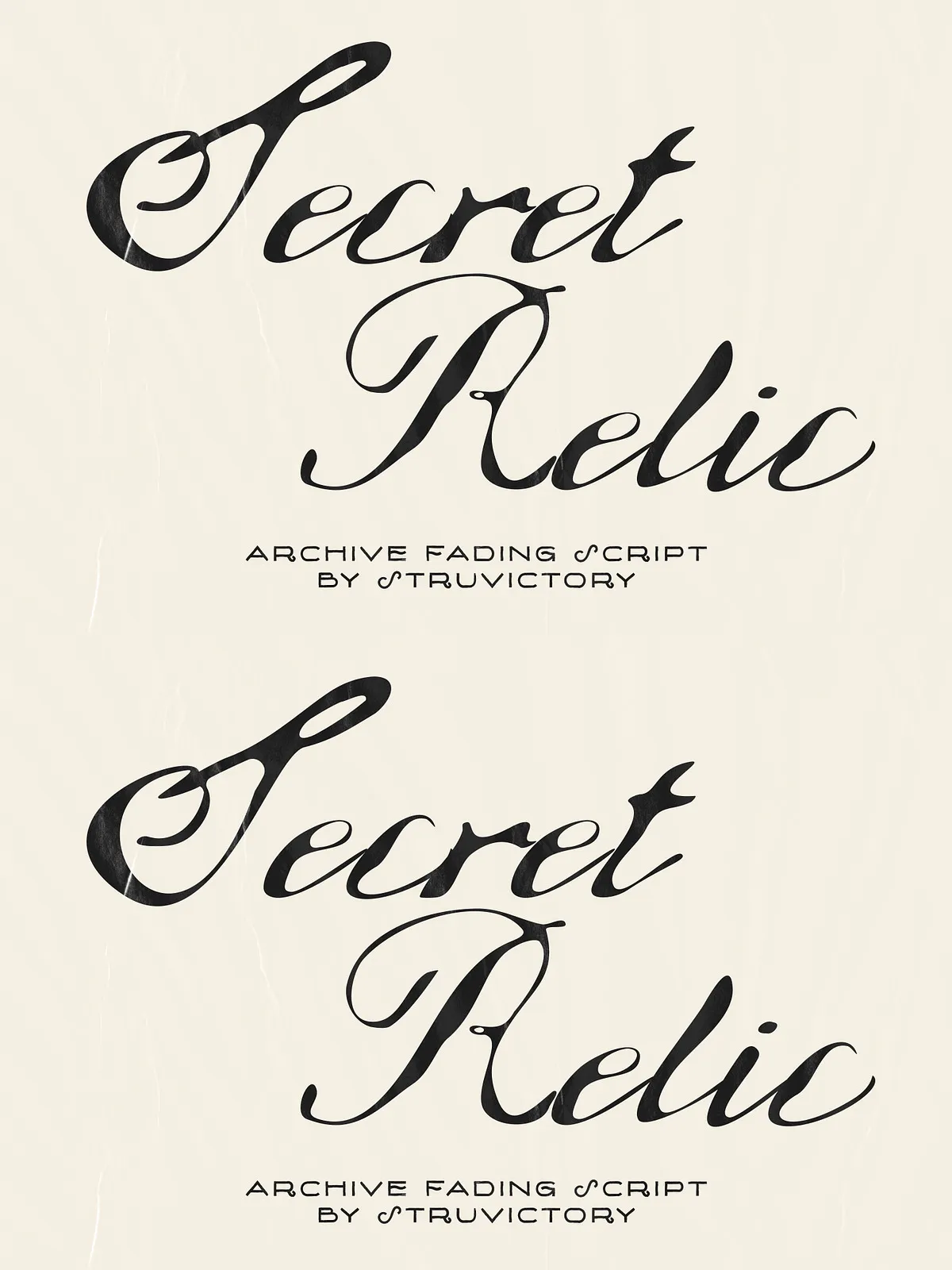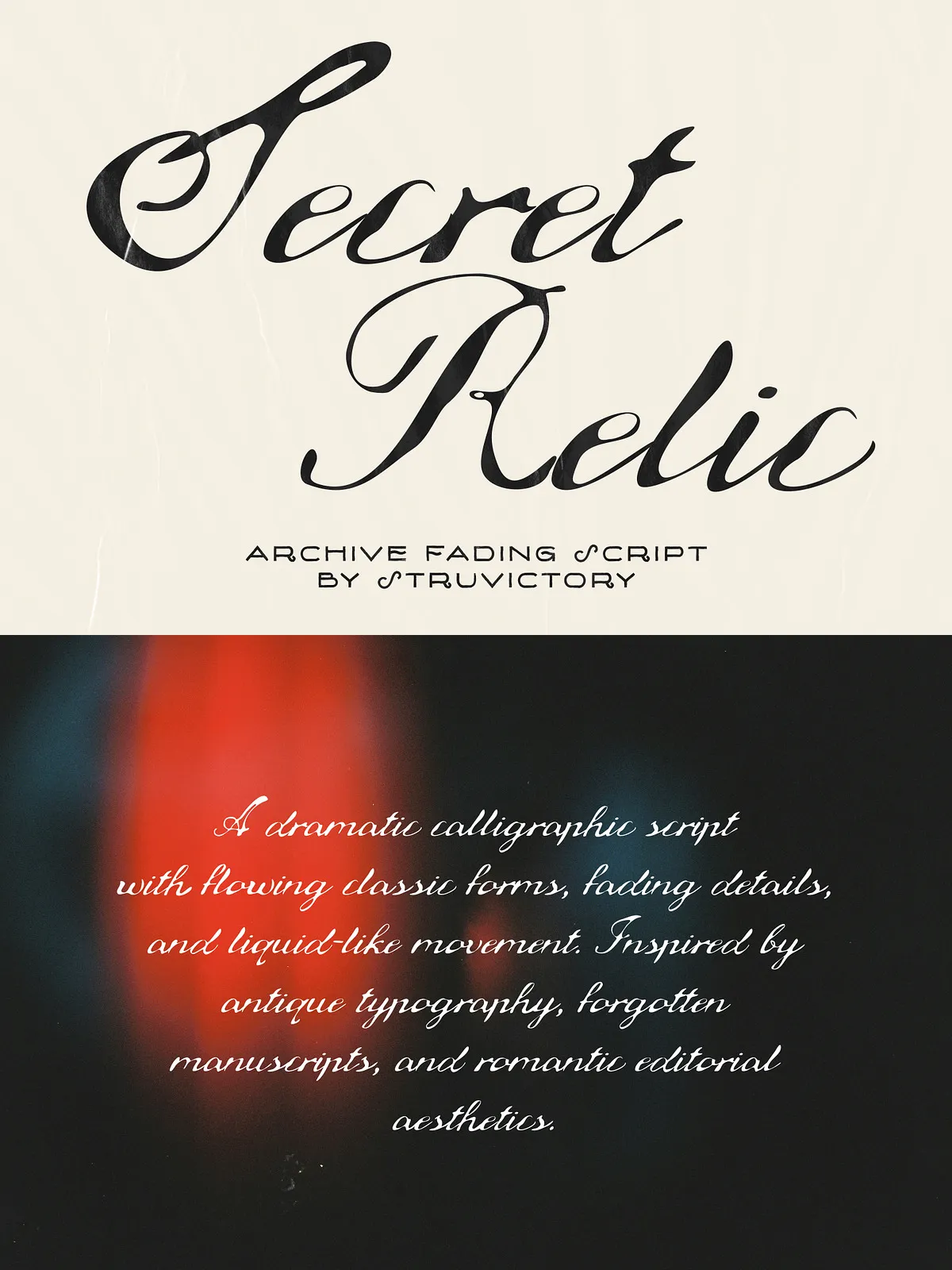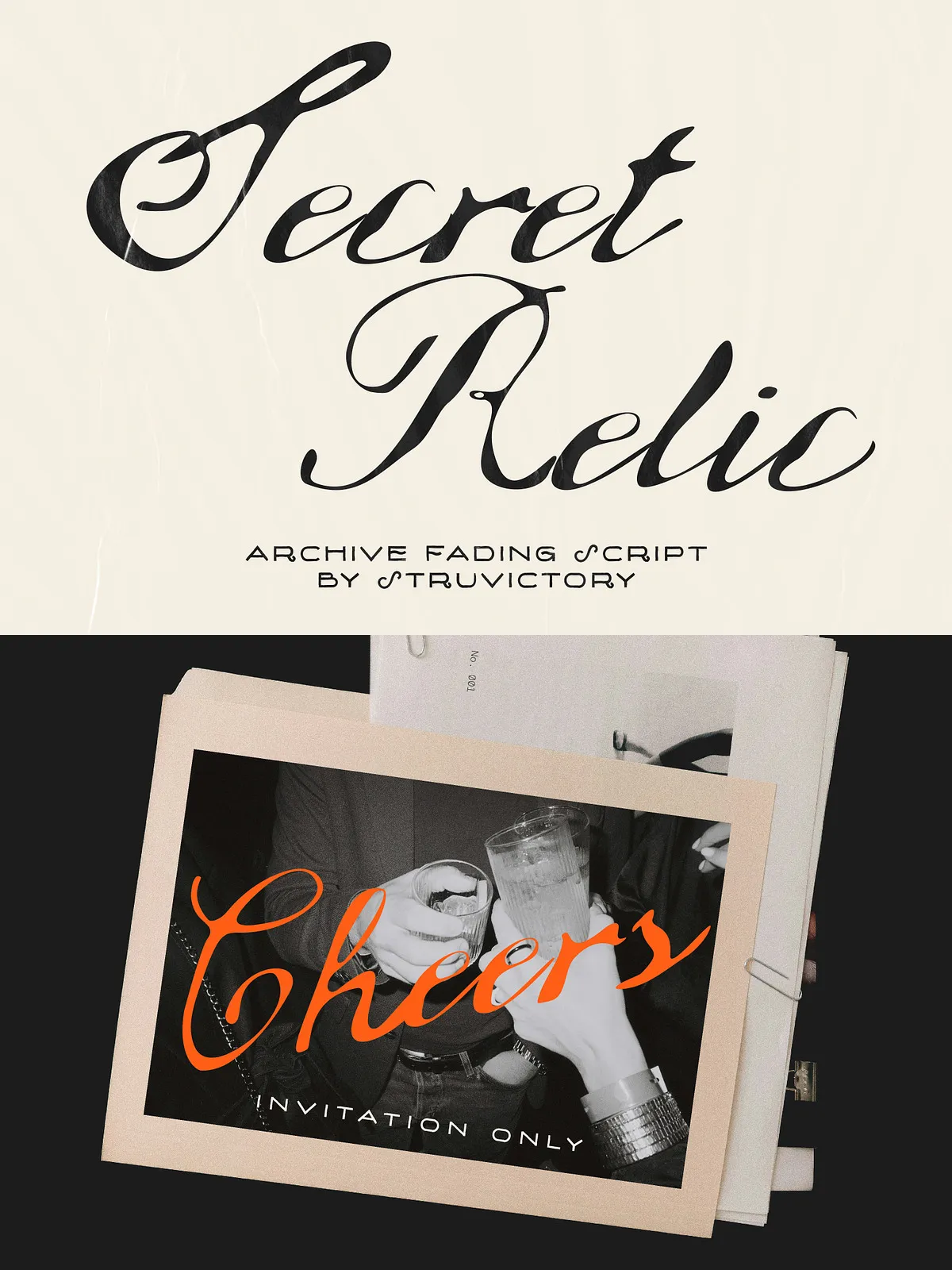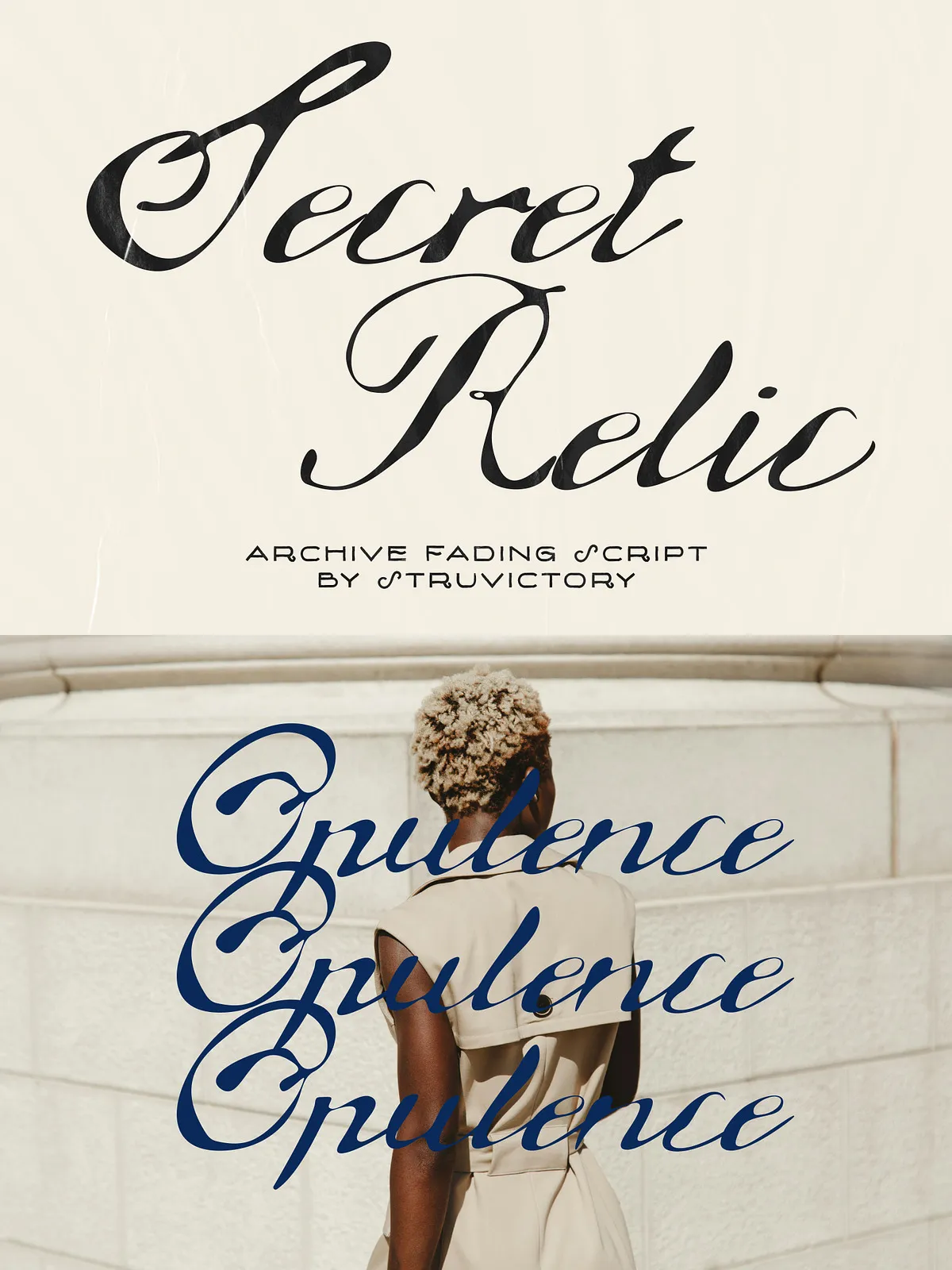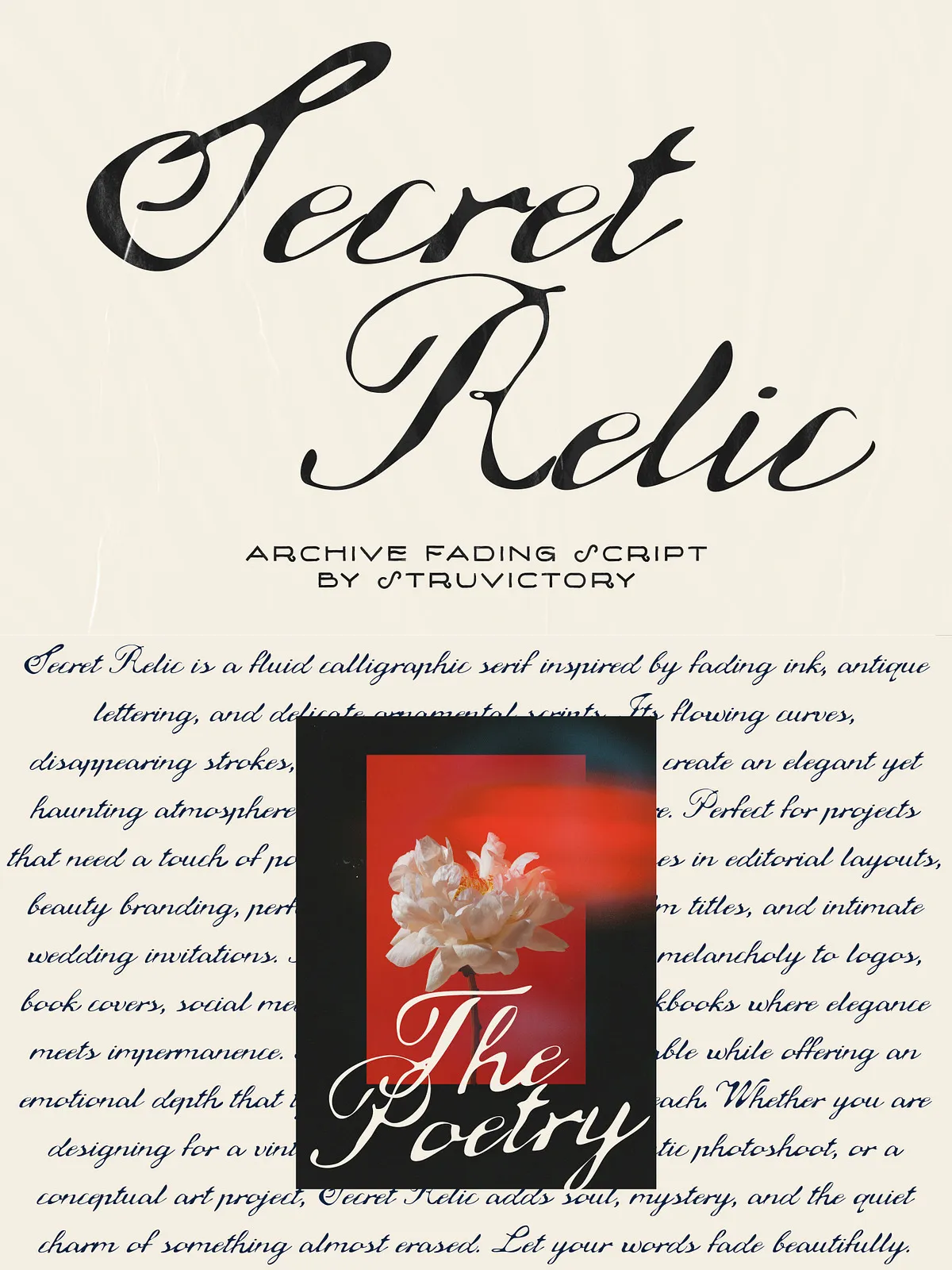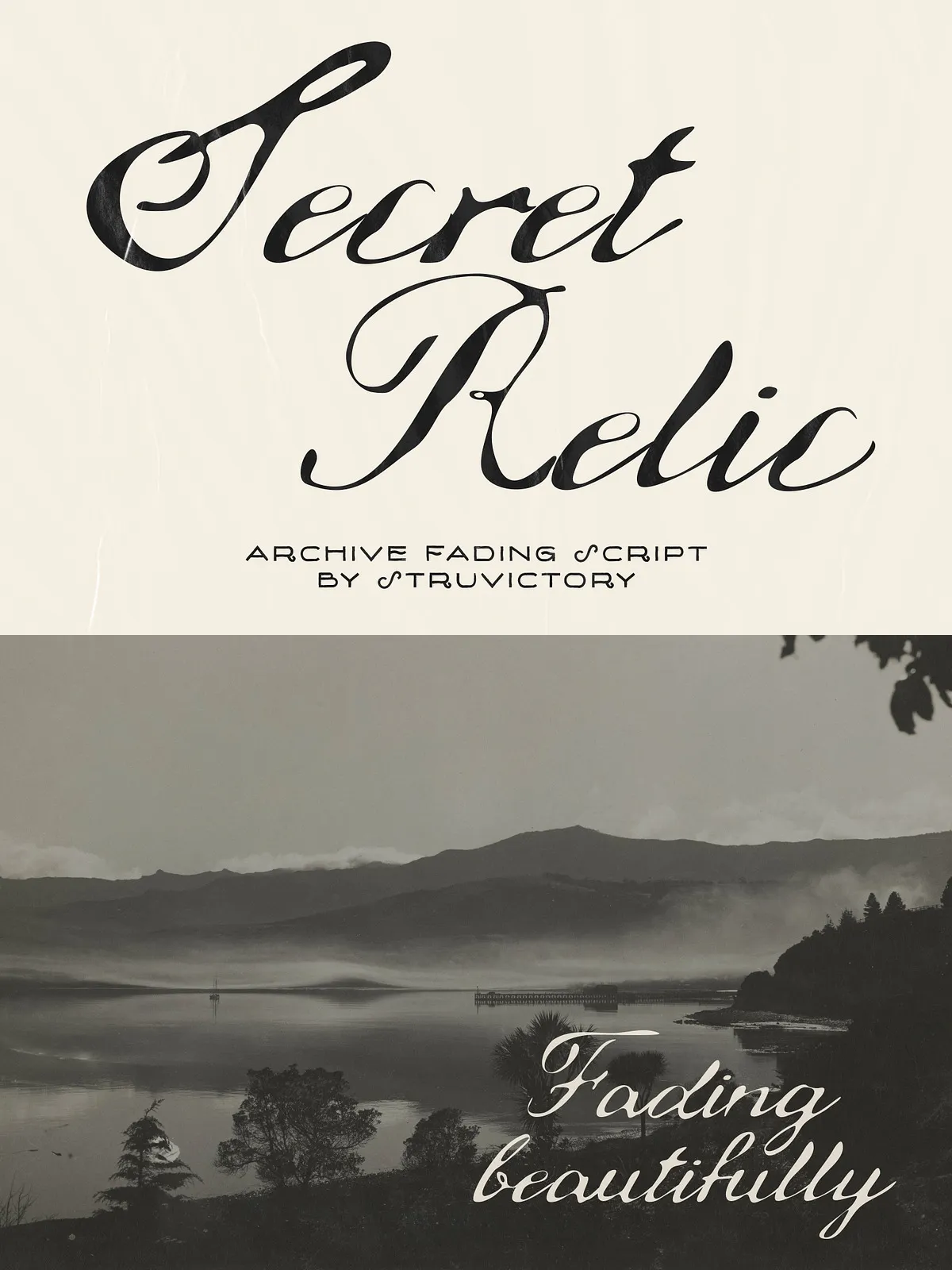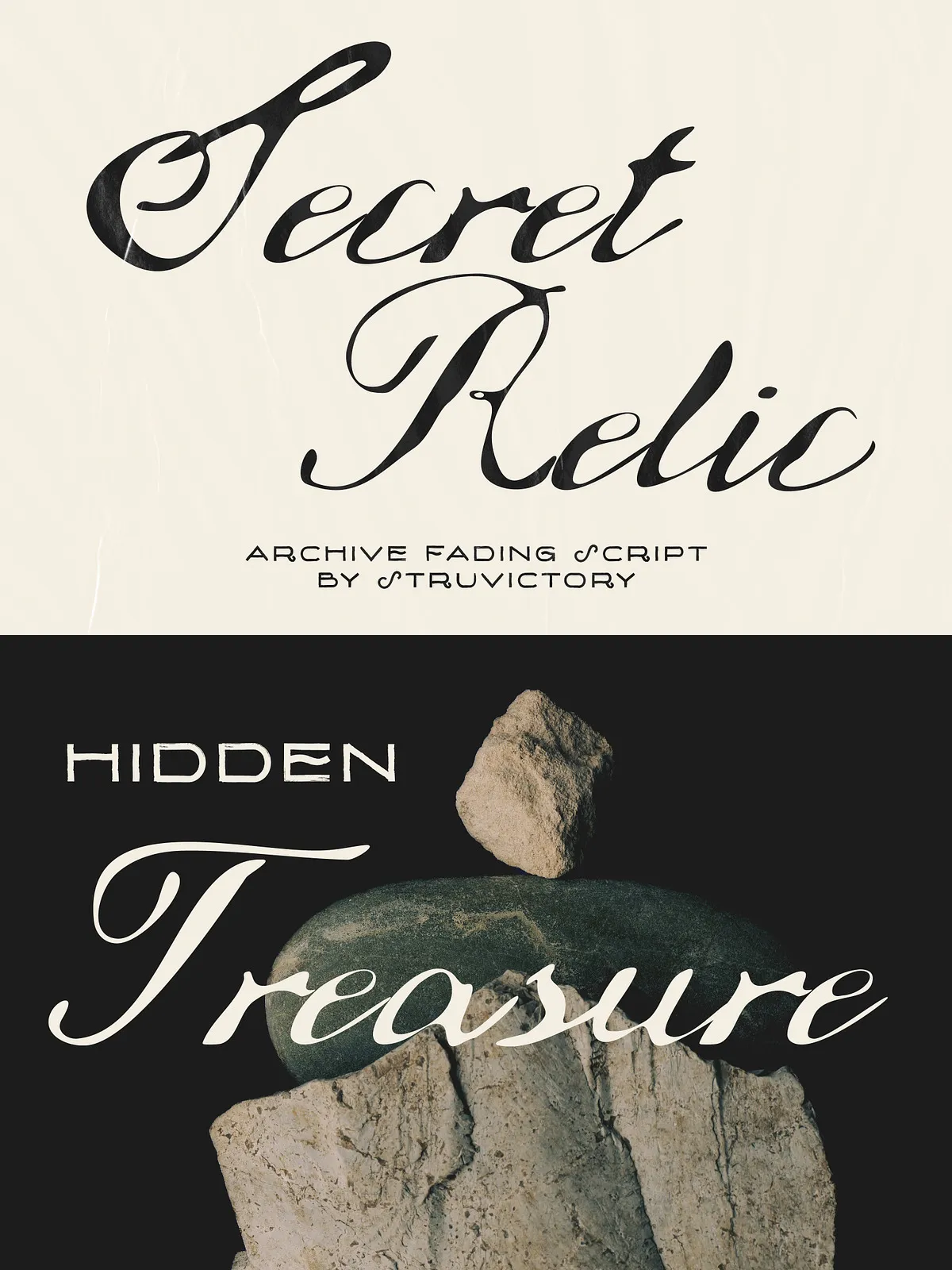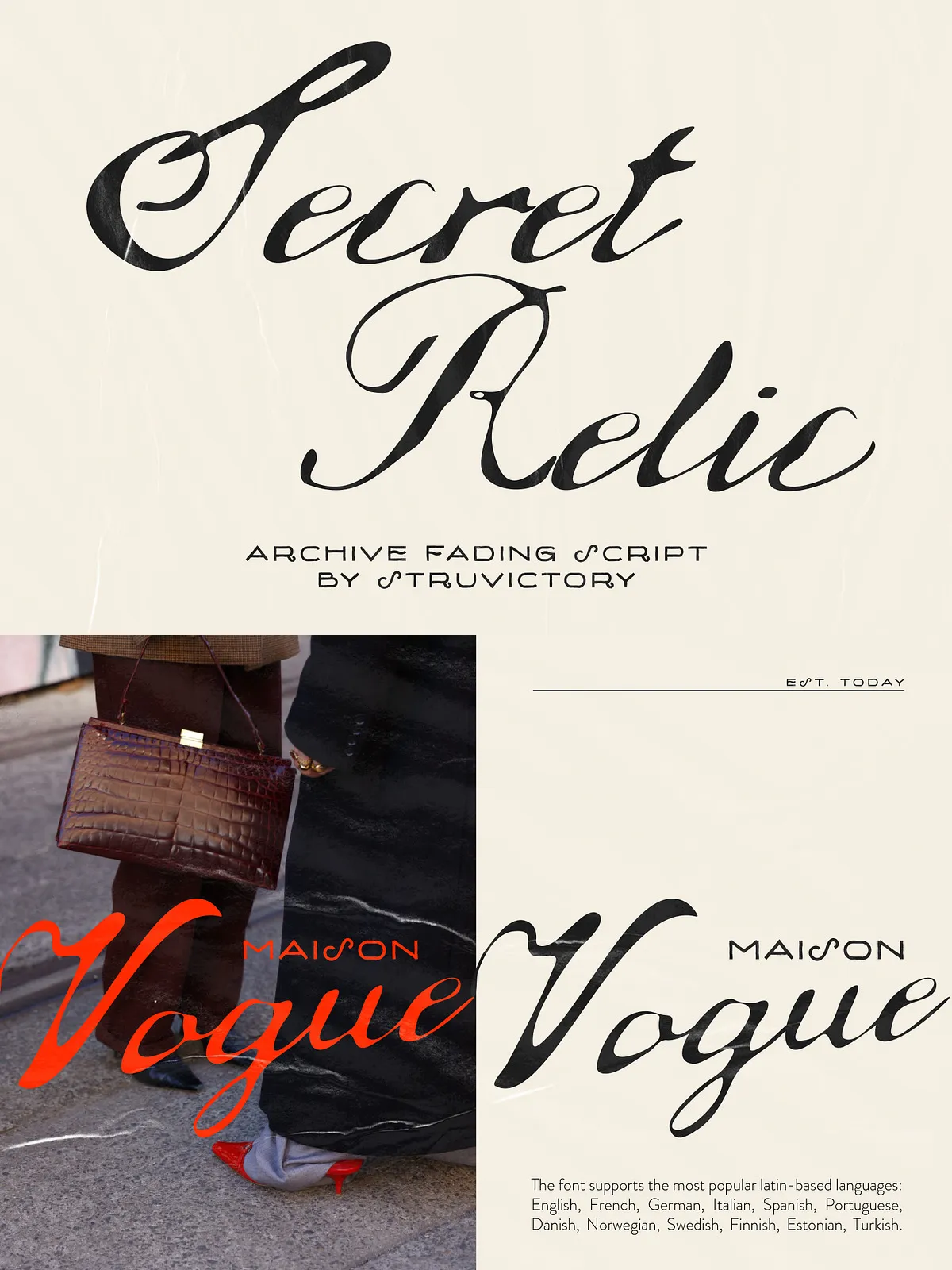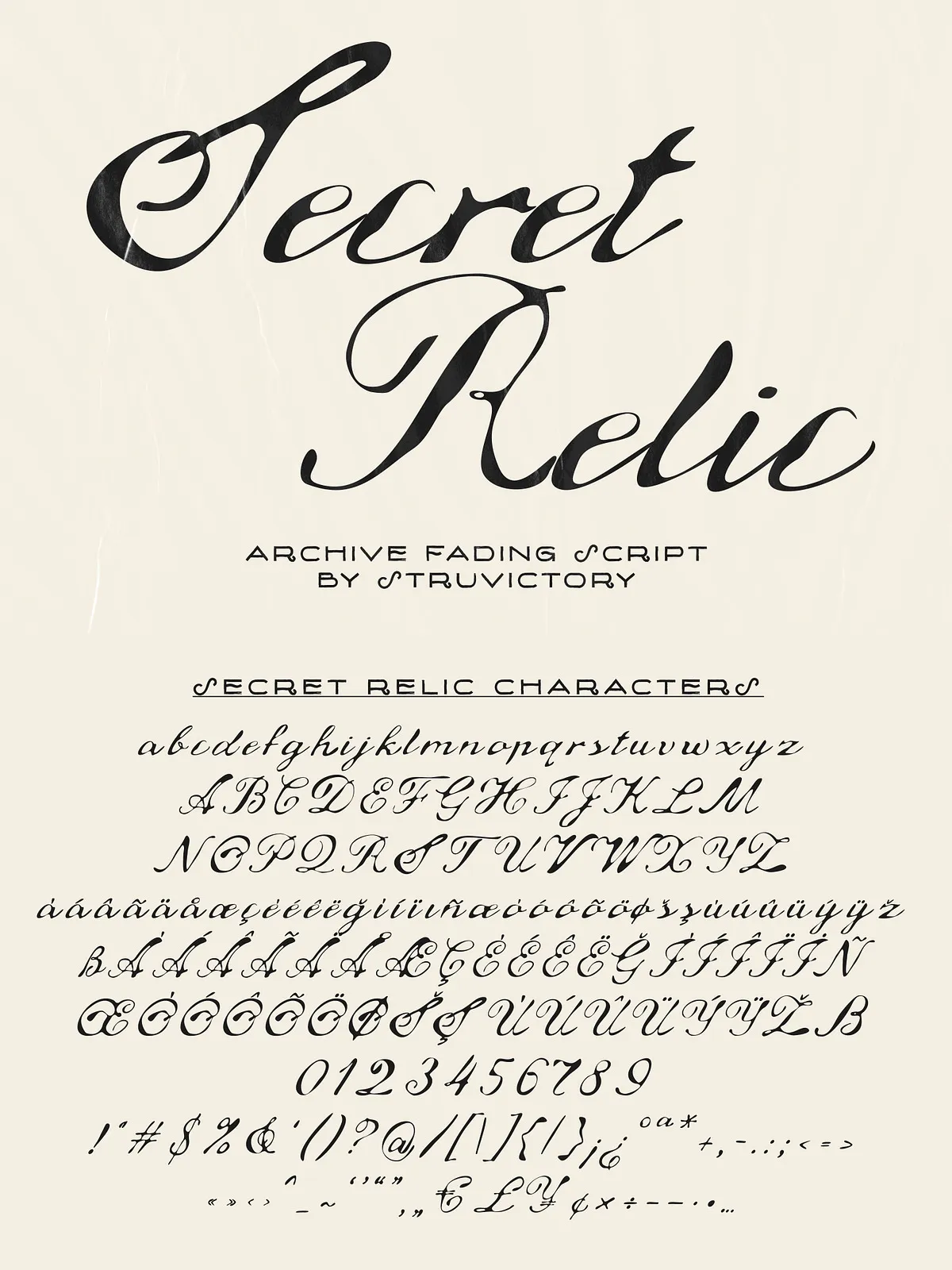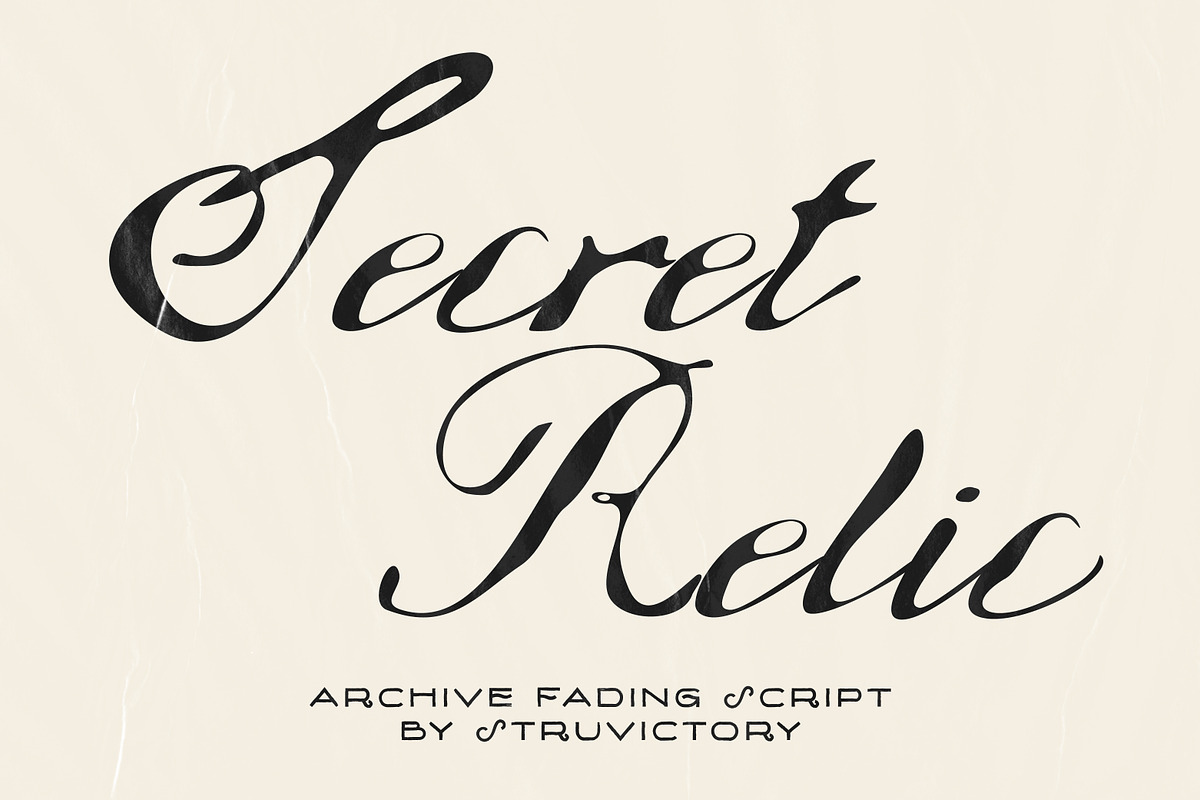
Secret Relic delivers an evocative script that reads like handwriting left to weather and time. This expressive font pairs refined calligraphic strokes with a soft, liquid edge that suggests fading ink, producing an aesthetic that is elegant, fragile, and emotionally resonant. Designed for display and headline use, Secret Relic brings poetic decay and quiet romance to branding, editorial spreads, packaging, invitations, and any design that benefits from a sense of mystery and memory.
Design Character
Calligraphic Roots, Fluid Finish
Secret Relic stems from classical calligraphic forms but adapts them into a looser, more organic voice. The strokes move with a natural rhythm; ascenders and descenders flow with measured elegance while edges blur into soft tails as if ink is dissolving into the paper. This controlled deterioration reads as intentional and sophisticated rather than accidental, giving designs a cultivated, nostalgic tone.
Atmosphere and Tone
Use Secret Relic when you want to evoke heritage, memory, or poetic melancholy. The font carries a gentle sense of impermanence that complements vintage photography, textured paper, muted color palettes, and editorial treatments that emphasize atmosphere over polish. It reads as honest and handcrafted, communicating authenticity in every curve.
Recommended Uses
- Branding and logos that need an elegant, historic, or romantic voice
- Packaging for artisanal goods, perfumes, boutique food products, and stationery
- Editorial covers, feature headings, and pull-quotes that demand character
- Wedding invitations, greeting cards, and event collateral seeking timeless refinement
- Web hero images and banners that pair texture with expressive typography
Working with Secret Relic
Layout and Pairing Tips
- Reserve Secret Relic for headings, logos, and short phrases; avoid using it as a long-form body face.
- Pair the script with a clean, neutral sans-serif for body copy to preserve hierarchy and legibility.
- Reinforce the vintage mood with paper textures, subtle grain overlays, or washed color backgrounds.
- Employ generous leading and letter-spacing adjustments when using the font at smaller display sizes to maintain clarity.